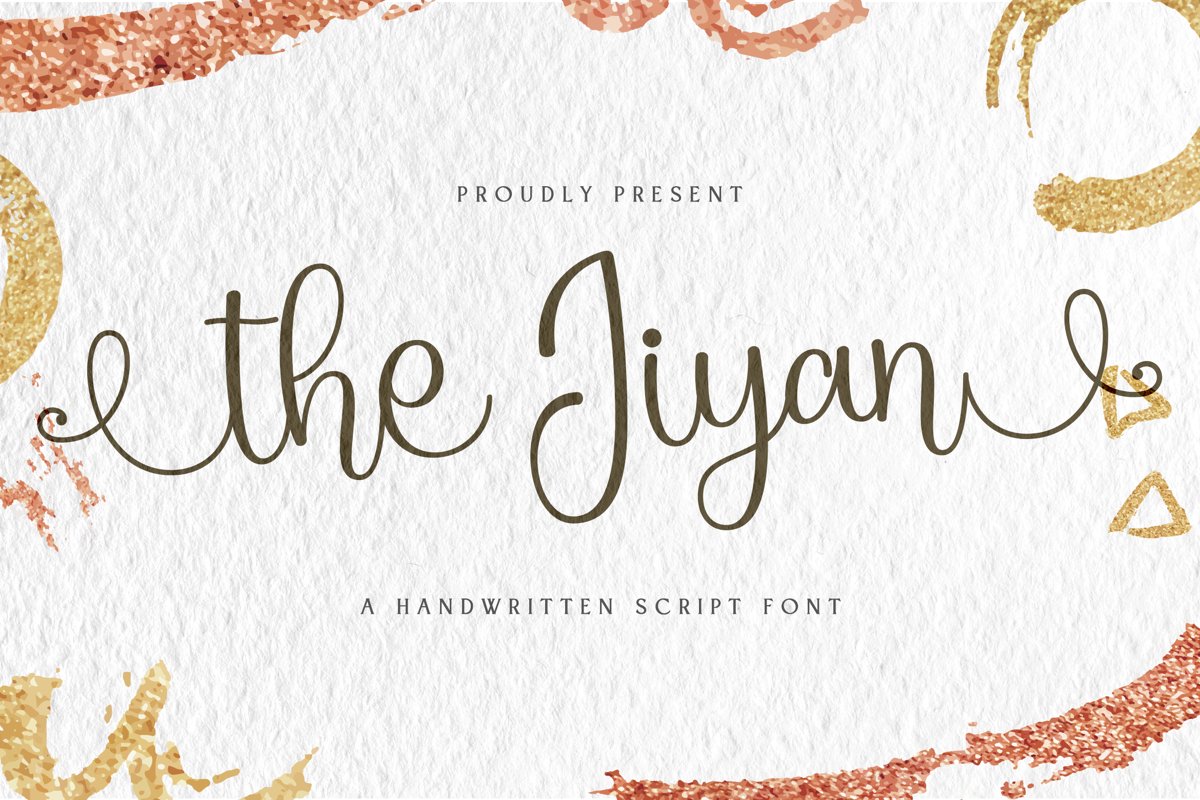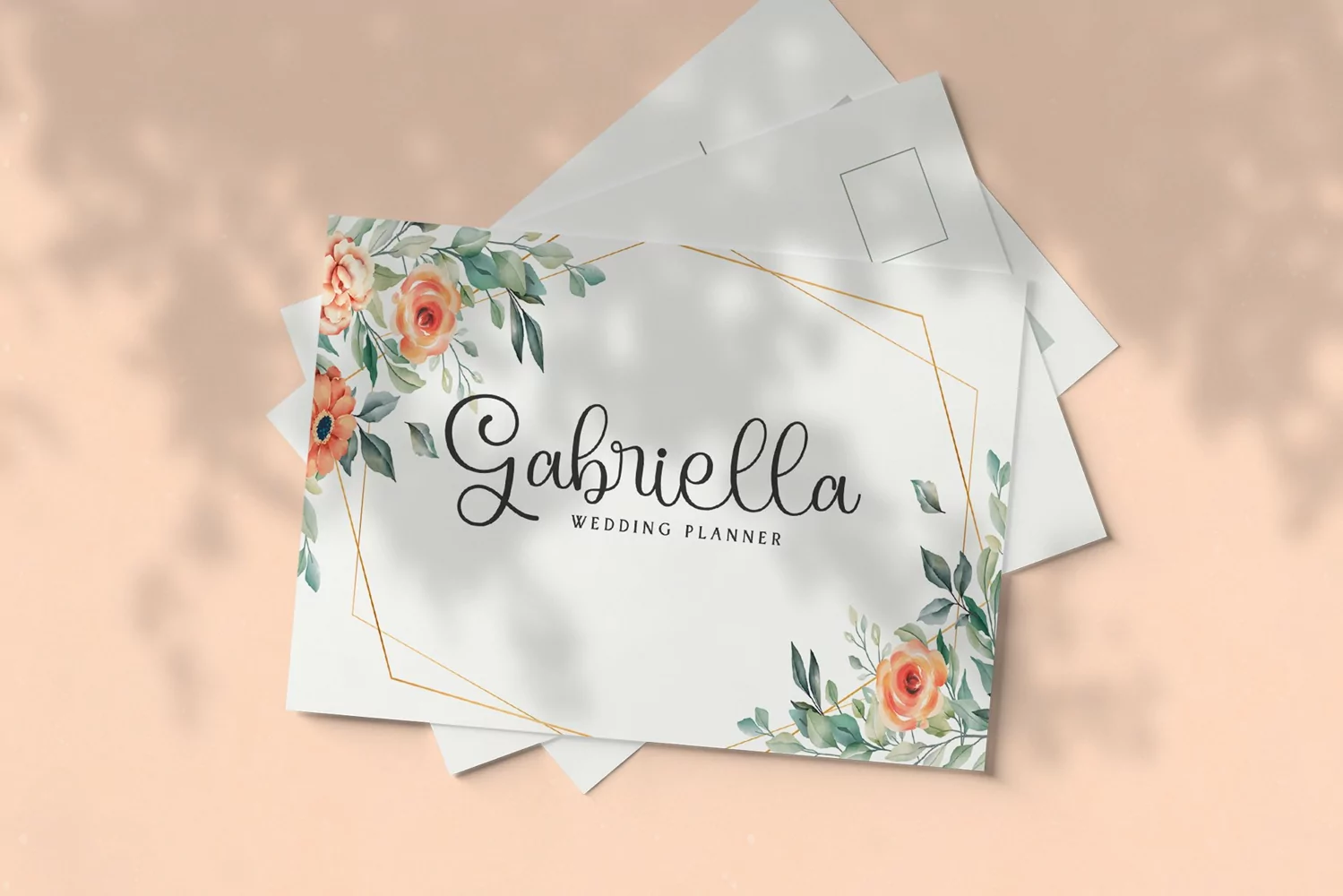
Jiyan is a handwritten script typeface. Perfect for display, quotes, packaging, merchandise, crafting needs, wedding needs, logo, logotype, floral, bouquet, greeting, business card, and many more.